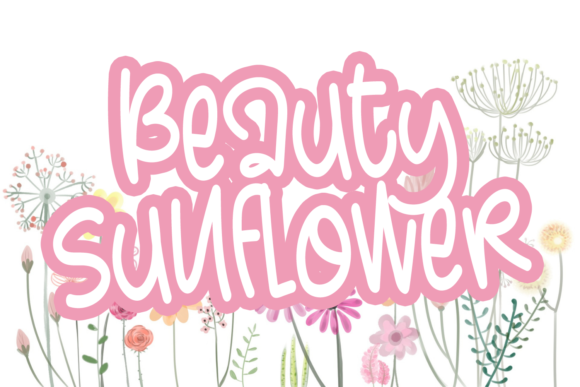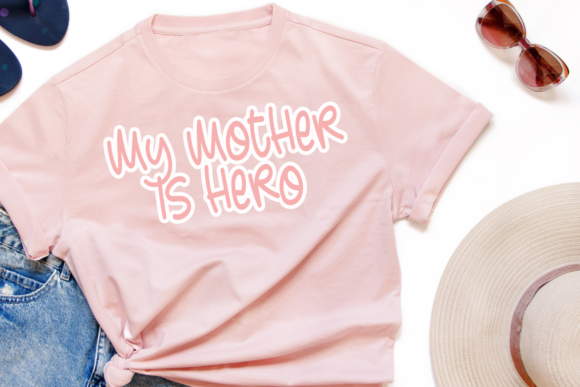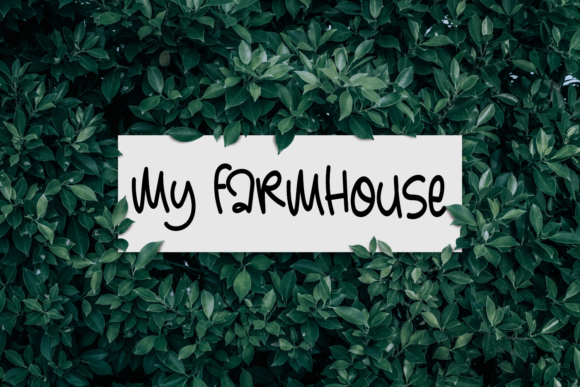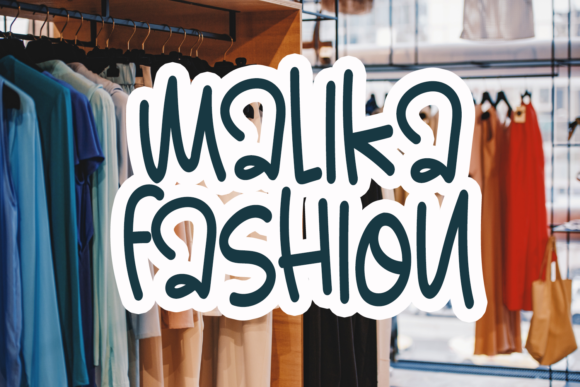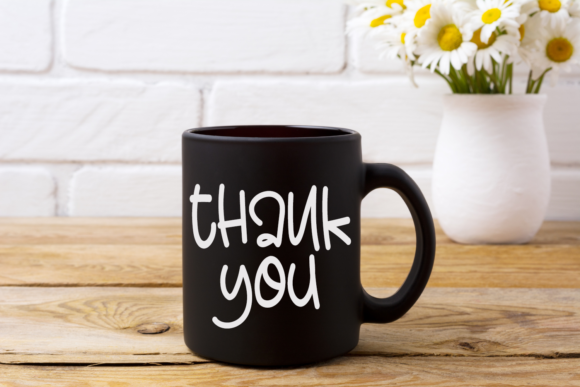
Introducing Dear Spring Font: The Quirky and Friendly Handwritten Font You Need
Are you tired of using the same old fonts in your designs? Do you want to add a touch of personality and whimsy to your creations? Look no further than Dear Spring Font, a quirky, relaxed, and friendly handwritten font that’s sure to elevate your font library.
What is Dear Spring Font?
Dear Spring Font is a unique and charming handwritten font that’s perfect for designers, crafters, and anyone looking to add a personal touch to their work. With its relaxed and friendly vibe, this font is ideal for a wide range of projects, from branding and advertising to invitations and crafts.
Key Features of Dear Spring Font
- Quirky and playful: Dear Spring Font has a fun and quirky personality that’s sure to make your designs stand out.
- Relaxed and friendly: This font has a warm and approachable feel that’s perfect for creating a connection with your audience.
- Handwritten with love: Each letter has been carefully crafted by hand to give the font a personal and unique touch.
- Versatile: Dear Spring Font can be used for a wide range of projects, from digital designs to print materials.
Why You Need Dear Spring Font in Your Library
No matter what topic or theme you’re working with, Dear Spring Font has the potential to elevate your creations and make them more engaging. Here are just a few reasons why you need this font in your library:
- Adds personality to your designs: Dear Spring Font is the perfect way to add a touch of personality and whimsy to your designs.
- Creates a connection with your audience: The friendly and approachable vibe of this font makes it easy to connect with your audience and create a lasting impression.
- Perfect for branding and advertising: Dear Spring Font is ideal for creating unique and memorable brand identities and advertising campaigns.
- Great for crafts and DIY projects: This font is also perfect for crafters and DIY enthusiasts who want to add a personal touch to their projects.
How to Use Dear Spring Font
Dear Spring Font is easy to use and can be incorporated into a wide range of projects. Here are a few ideas to get you started:
- Branding and advertising: Use Dear Spring Font to create unique and memorable brand identities, logos, and advertising campaigns.
- Invitations and events: This font is perfect for creating invitations, party decorations, and other event materials.
- Crafts and DIY projects: Use Dear Spring Font to add a personal touch to your craft and DIY projects, such as scrapbooking, card making, and more.
- Digital designs: Dear Spring Font can be used in digital designs, such as social media graphics, blog posts, and more.
Dear Spring Font is a quirky, relaxed, and friendly handwritten font that’s sure to elevate your font library and add a touch of personality to your designs. With its versatile and playful vibe, this font is perfect for a wide range of projects, from branding and advertising to crafts and DIY projects. So why wait? Get your hands on Dear Spring Font today and start creating unique and memorable designs that will leave a lasting impression on your audience.